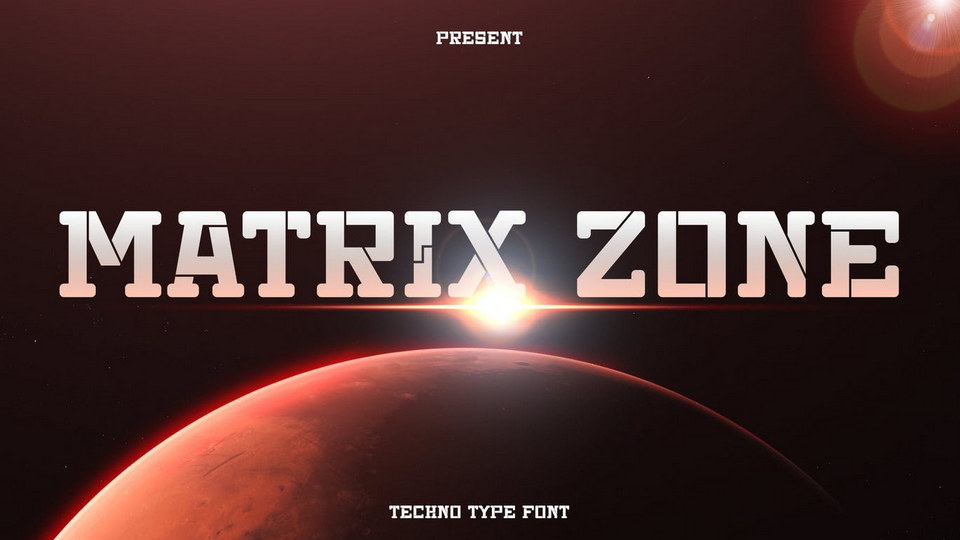
Download Matrix Zone Font, a display typeface that comes with a high-tech look with a modern cut-out style, represent an automatic and highly crafted technology for all of us.